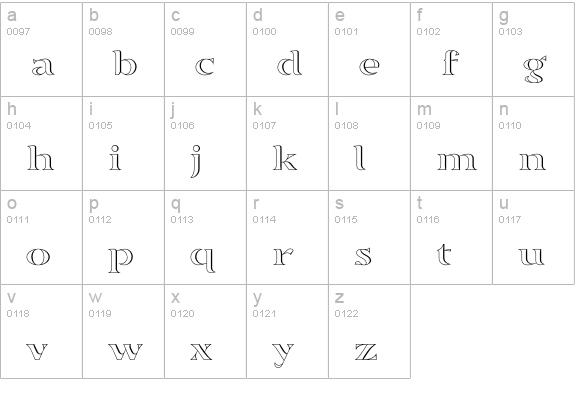
Sortefax Font Details
Sortefax is a visually stunning and modern font that is perfect for adding a touch of elegance to any design project. With its sleek lines and stylish curves, Sortefax exudes a sense of sophistication and professionalism. Whether you are designing a logo, creating a website, or crafting a beautiful invitation, Sortefax will be the perfect choice to make your project stand out. But what makes Sortefax even more appealing is that it is available for free! Yes, you read that right. This amazing font can be downloaded for free at FontsMarket.com. We understand the importance of having access to high-quality fonts without breaking the bank, and that's why we are thrilled to offer Sortefax completely free of charge. Not only is Sortefax aesthetically pleasing, but it is also incredibly versatile. It can be used for both headlines and body text, making it a truly versatile typeface. Its clean and legible design ensures that your message will be conveyed clearly and effectively. Whether you are a professional designer or someone who simply enjoys playing around with typography, Sortefax is a must-have addition to your font collection. Its timeless elegance and modern appeal will elevate any design project to new heights. So why wait? Head over to FontsMarket.com now and download Sortefax for free. Don't miss out on this incredible opportunity to enhance your designs with a beautiful and freely available font.